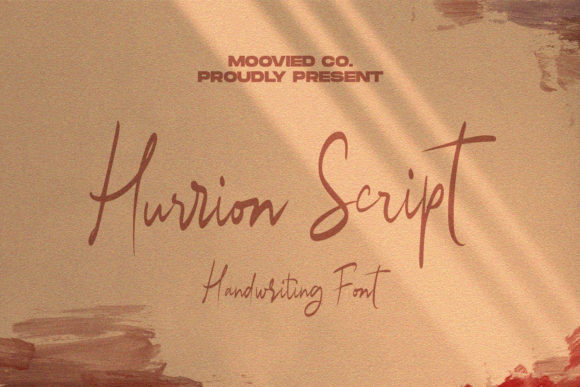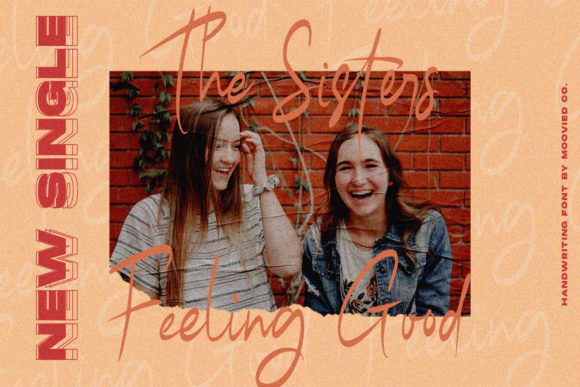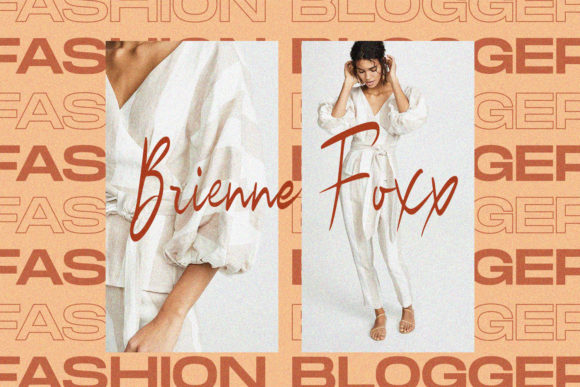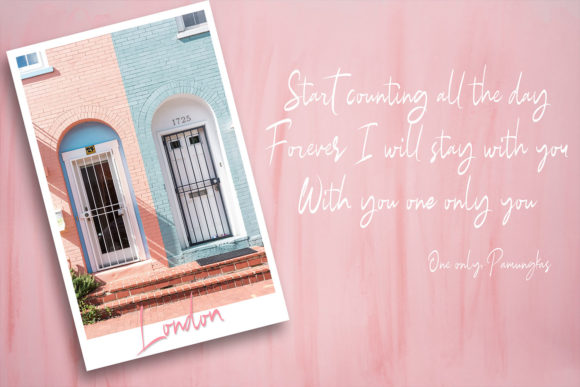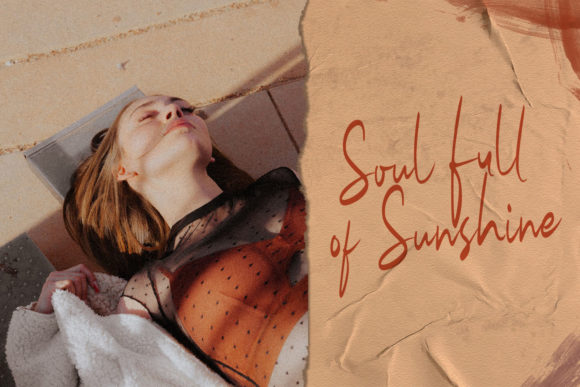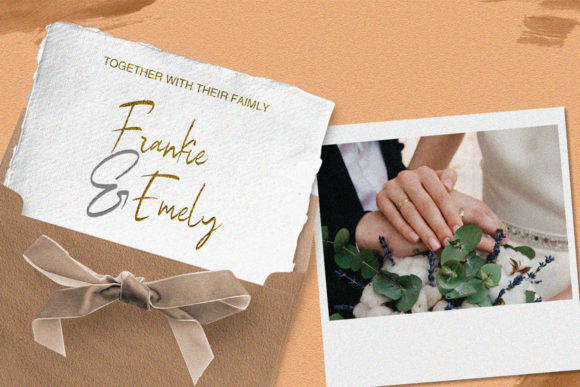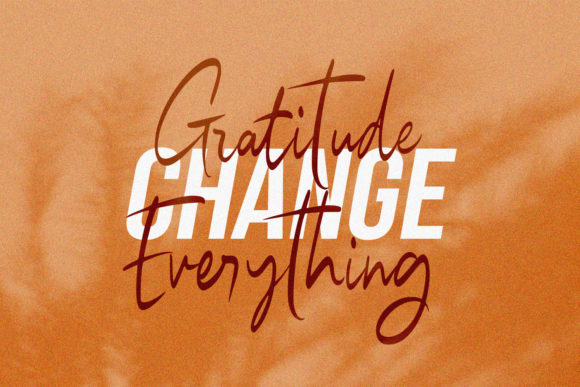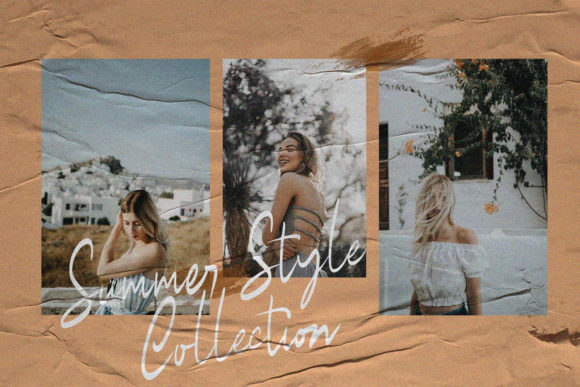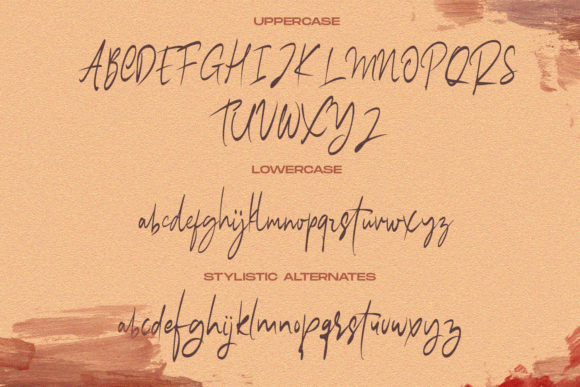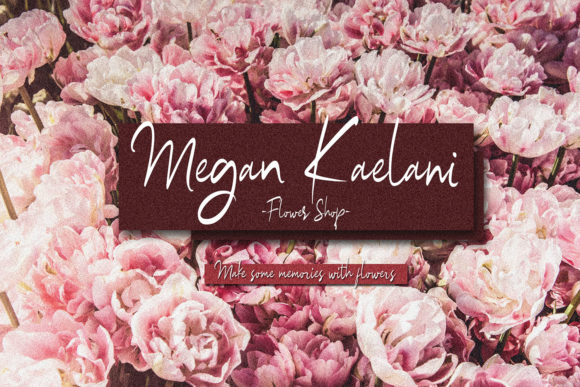
Hurrion Font
About Hurrion Font
Hurrion is a modern and fun script with a playful edge. Get inspired by its unique style, and turn any design project into a piece of art!